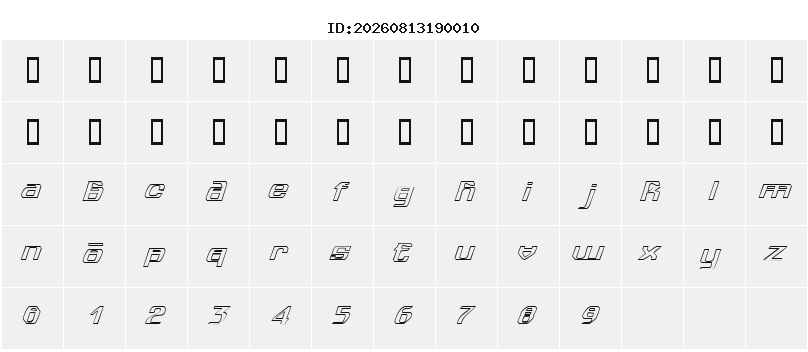
• Font Name: spuknik outline
• Font ID: Spuknik
• Full Font Name: spuknik outline
• Version: spuknik techno font
• PostScript Name: Spuknikoutline
• Character Count: 45
About spuknik outline.ttf
spuknik outline.ttf is a modern, elegant sans-serif font designed for ultimate readability and visual harmony. Perfect for branding, headlines, web design, and print materials.